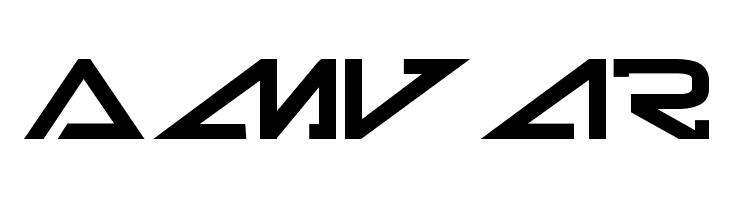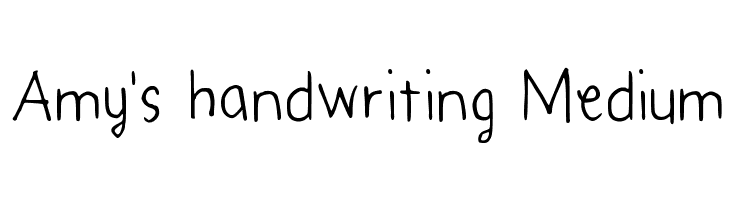
A bold, 3D, playful font with a graffiti-like style.
A bold, condensed font with a rugged, textured appearance.
A bold, condensed, and italicized font with a dynamic and energetic style.
A bold, rugged font with a handcrafted feel and strong visual impact.
A bold, expanded, and italicized font with a modern and dynamic style.
A bold, italicized font with thick, angular strokes and a dynamic, energetic style.
A bold, slanted, and highly stylized decorative font with a rugged appearance.
A bold, rugged font with thick, uneven strokes and a handcrafted feel.
A bold, dynamic font with thick strokes and sharp edges.
A bold, playful font with a rotated, dynamic style.
A bold and expressive script font with dynamic, flowing letterforms.
A decorative font of playful symbols and animal silhouettes.
A bold, expressive brush script with a dynamic, hand-painted style.
A bold, expressive brush script font with dynamic strokes and a hand-painted look.
A bold, hand-painted style font with dynamic, uneven strokes.
A playful and elegant handwritten font with fluid, connected strokes.
A bold, expressive script font with dynamic, interconnected letters.
A bold, handwritten script font with a modern and expressive style.
A bold, rhythmic font with a tribal-inspired design and thick, rounded strokes.
A bold, angular font with a futuristic, tech-inspired design.
A display font made from images of retro boomboxes and cassette tapes.
A bold, impactful font with thick strokes and tight spacing.
A bold, playful script font with dynamic curves and a whimsical style.
A flowing, cursive font with elegant, interconnected strokes and a handwritten aesthetic.
A bold and expressive script font with a modern, handwritten style.
A playful, rounded, handwritten-style font with a friendly appearance.
A smooth, italic font with a modern and elegant style.
A graceful and fluid script font with elegant curves and delicate strokes.
A graceful and elegant cursive script font with fluid connections and artistic flourishes.
A bold, playful script font with elegant, flowing curves.